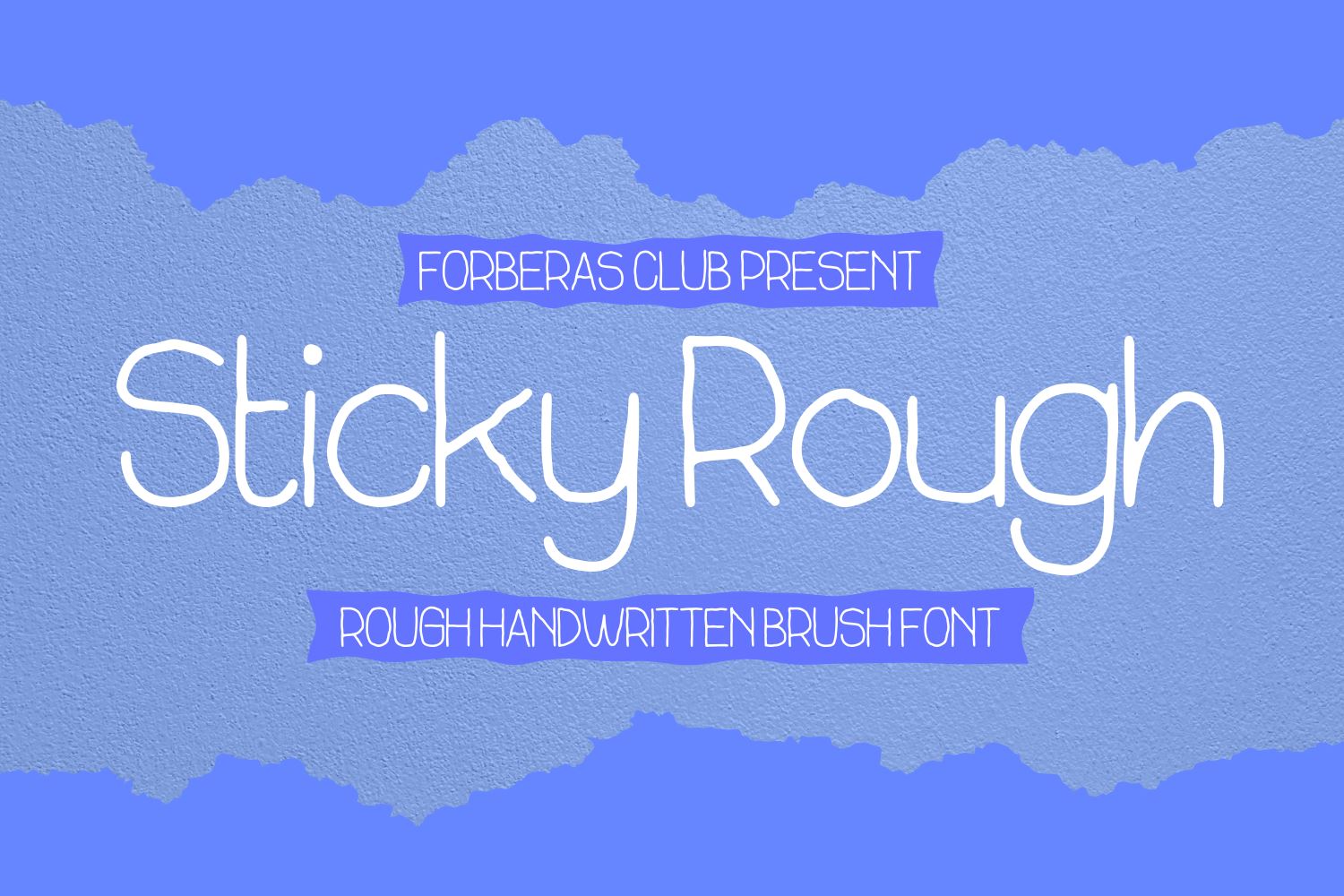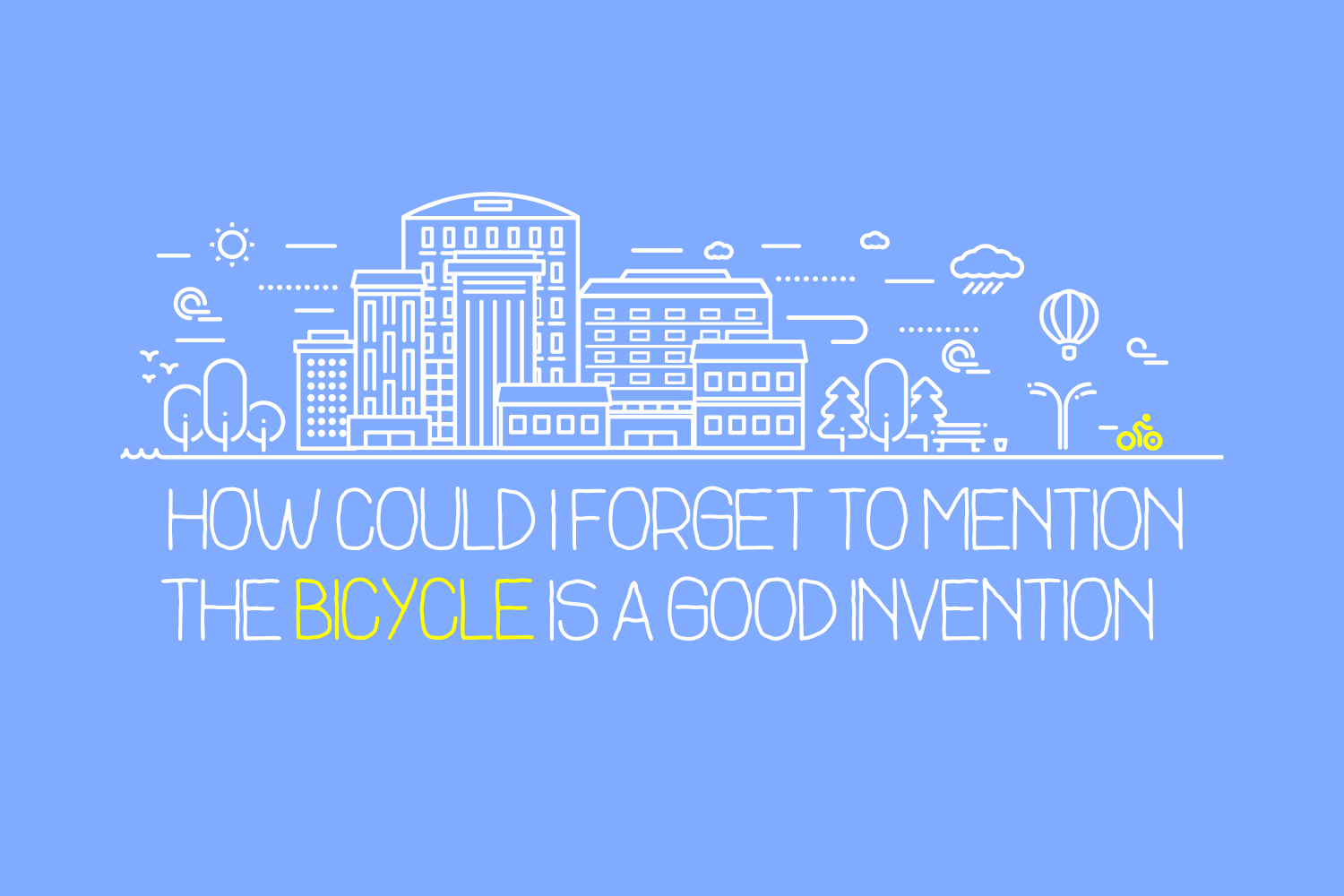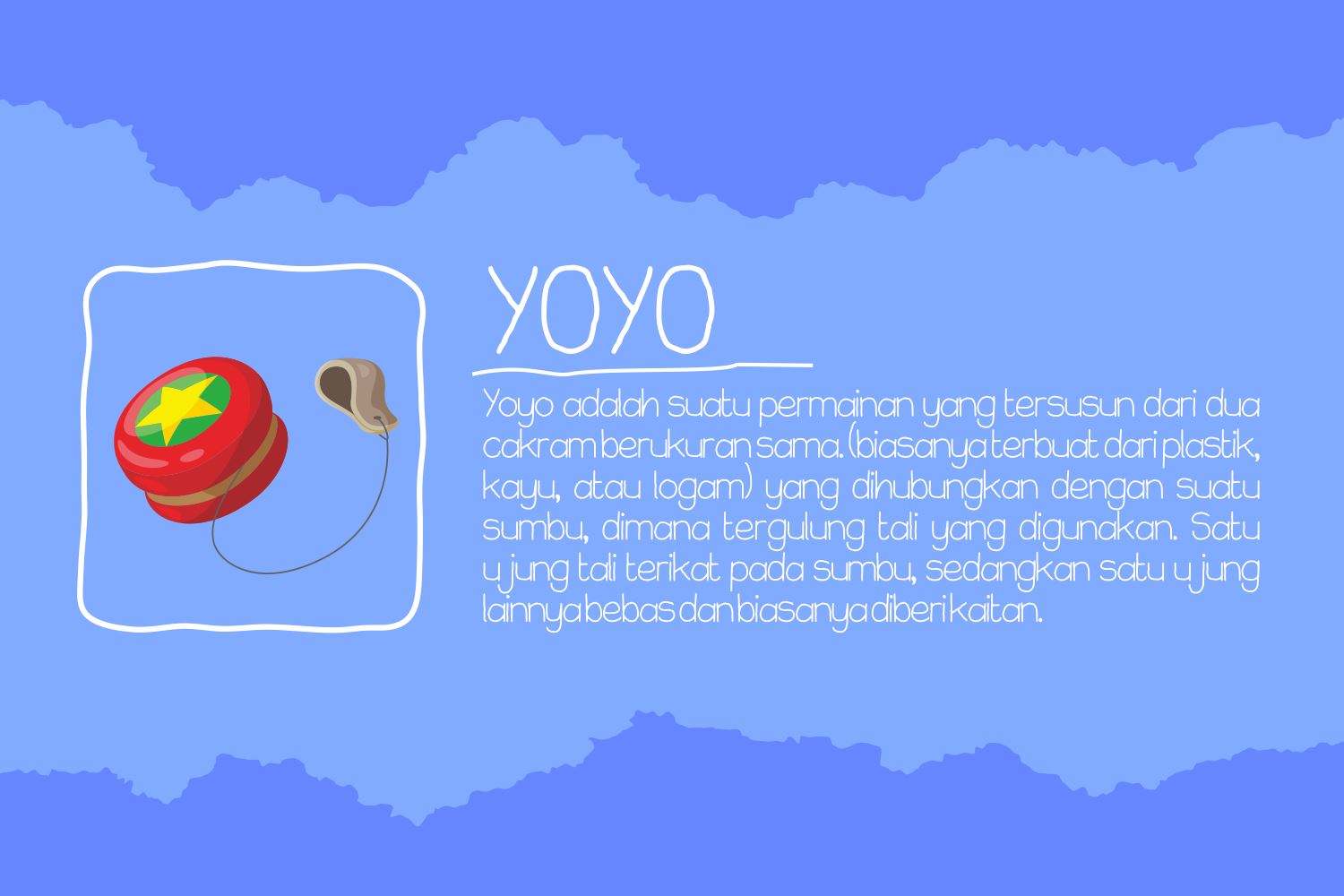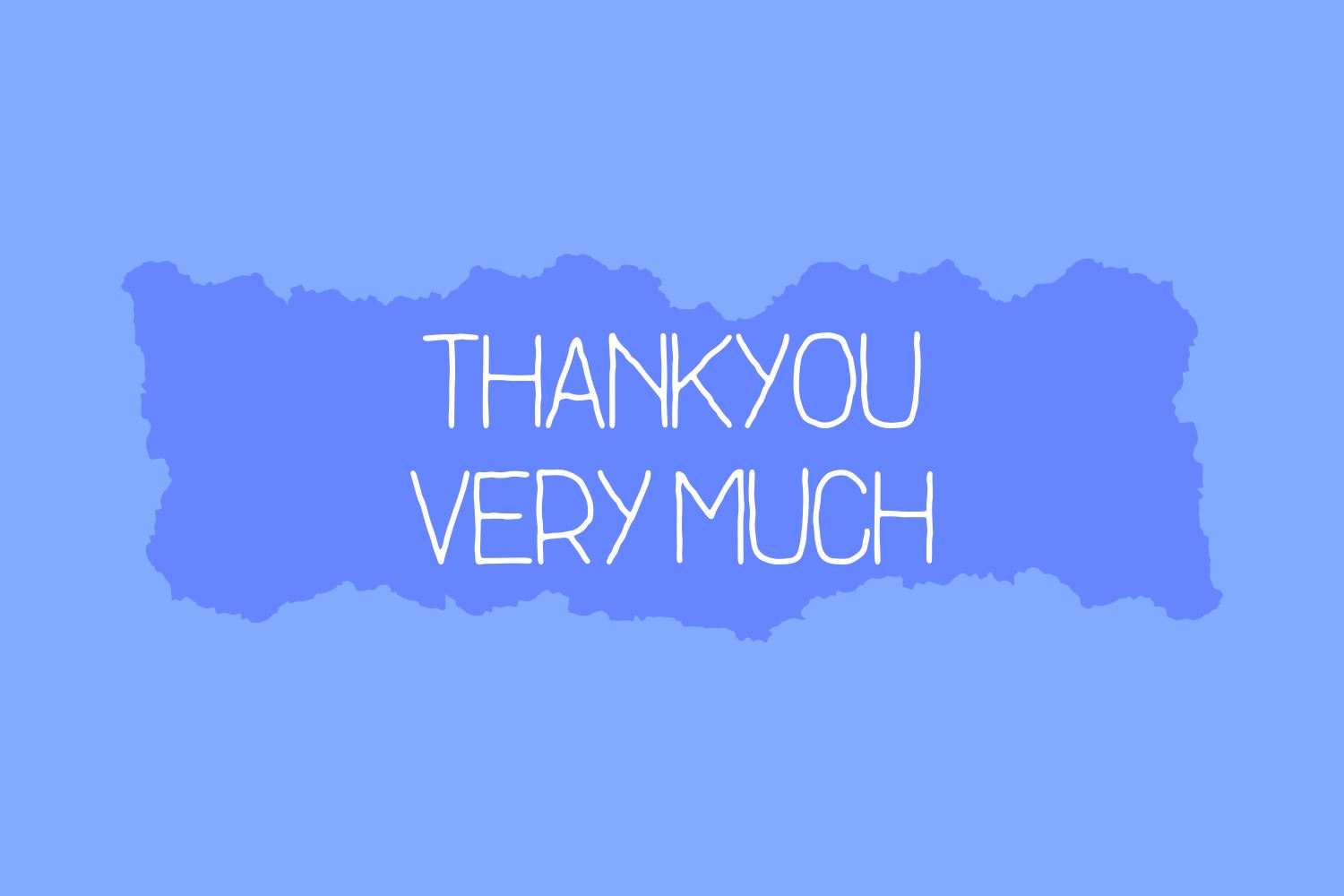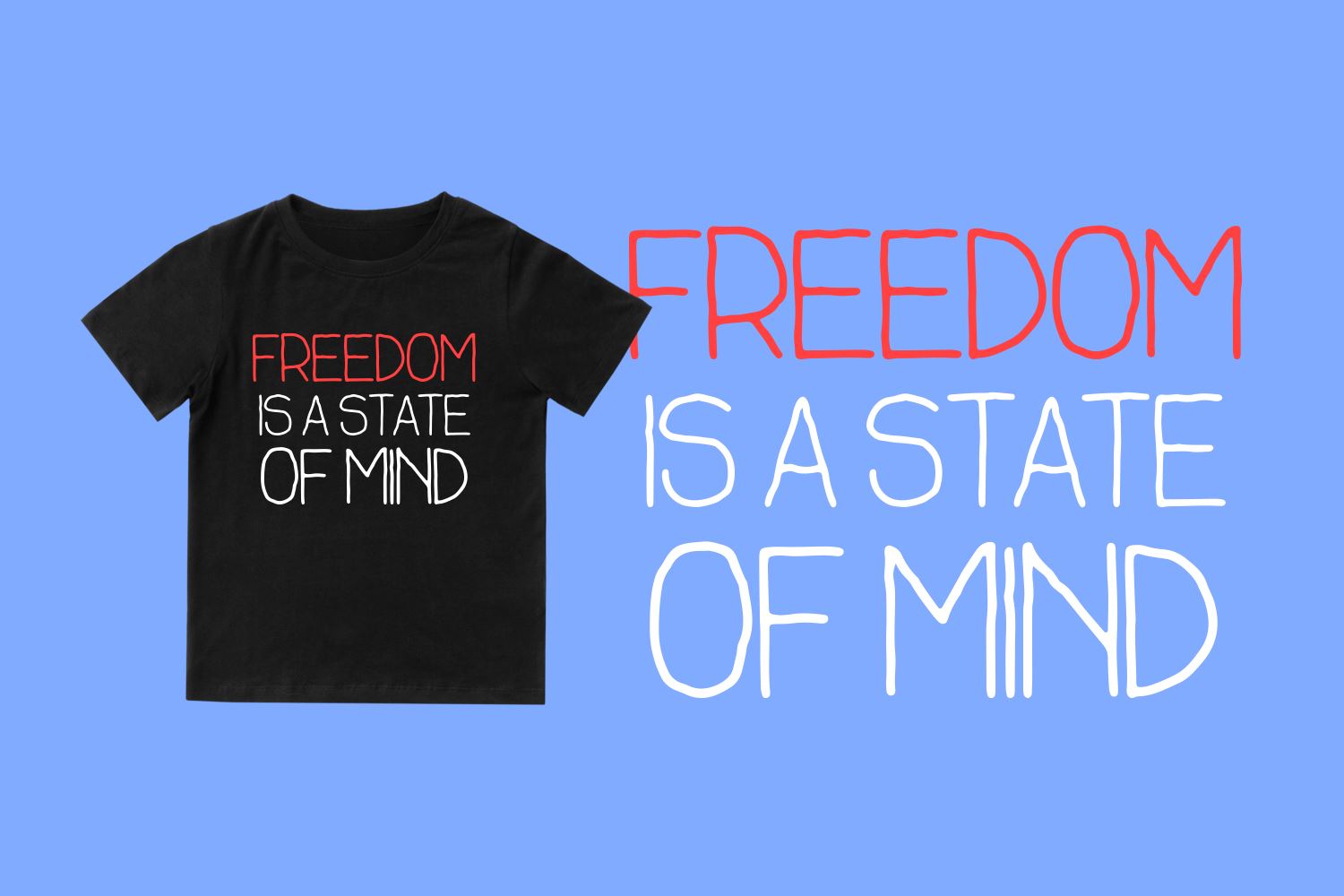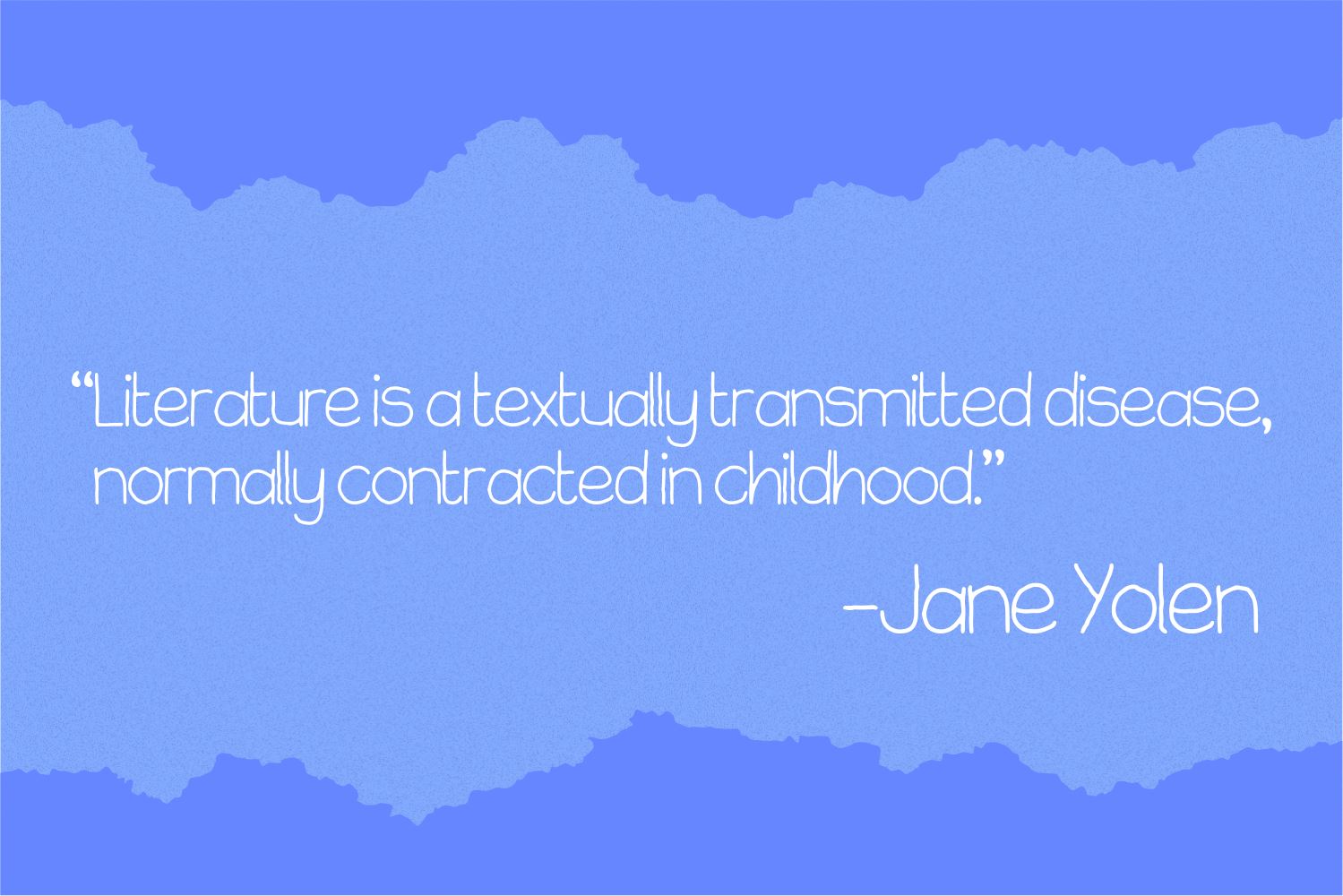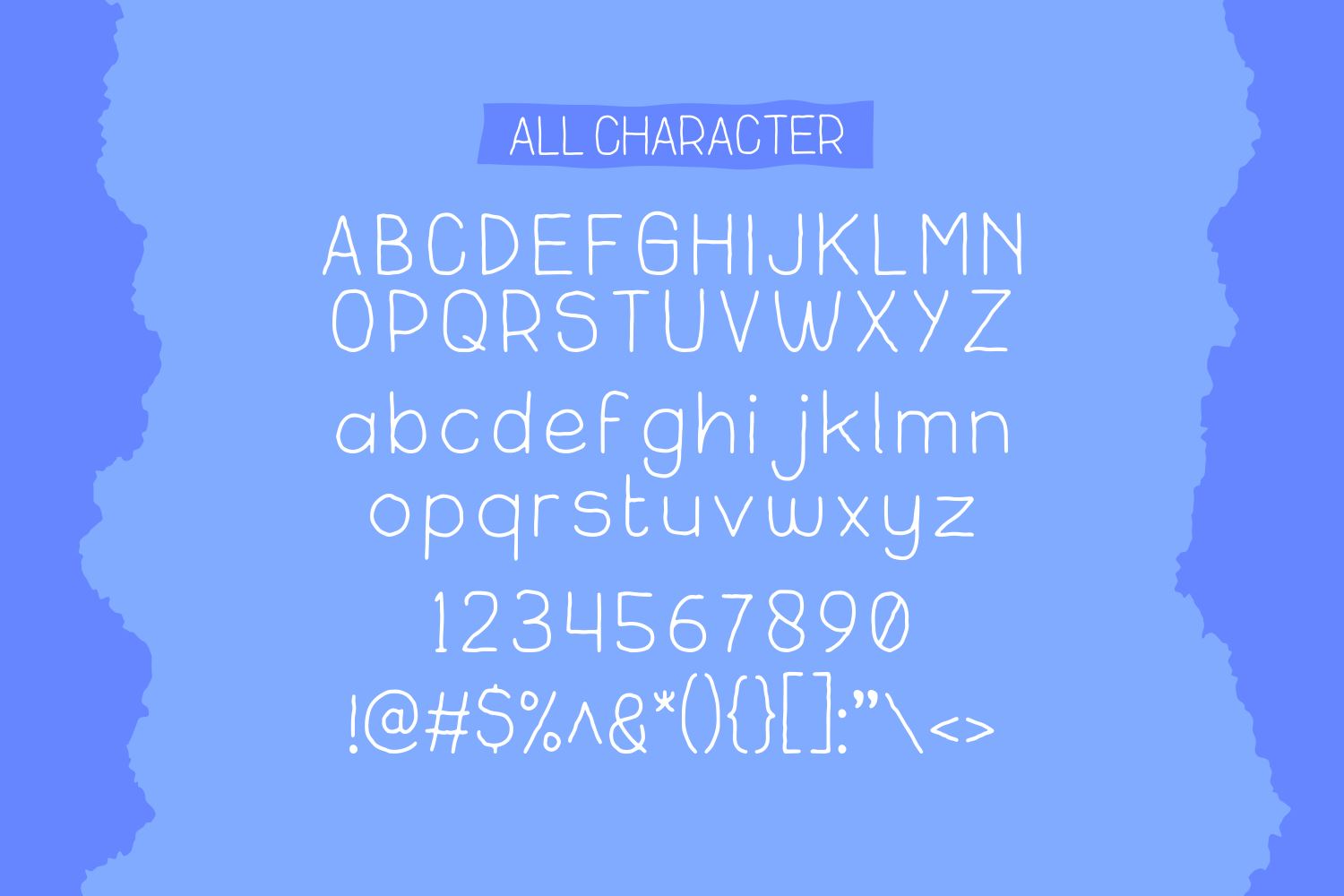
Sticky Rough
About Sticky Rough
Introducing Sticky Rough Font by Forberas Club Sticky Rough is a Modern Handwritten Font. Sticky Rough is perfect for book cover, product packaging, branding project, megazine, social media, wedding, or just used to express words above the background.This font includes TTF and OTF, This font also multilingual support.